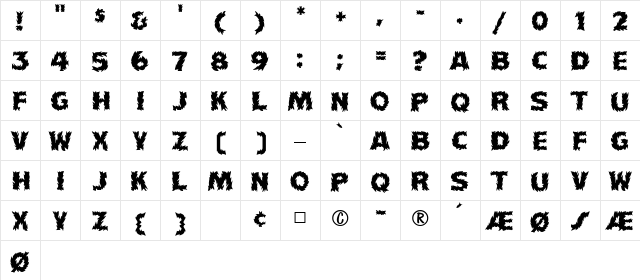
Flames MF Regular
Design Context for Flames MF Typeface
Flames MF is a composed and adaptable typeface that performs quietly and consistently across a wide range of design contexts.